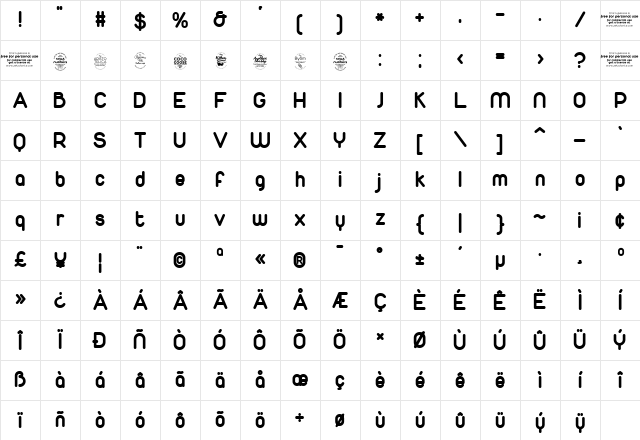
Duepuntozero Bold Free Font
Duepuntozero Bold
Foundry: studio kmzero
Designer: Francesco Canovaro
Design Context for Duepuntozero
Duepuntozero is a composed and adaptable typeface that performs quietly and consistently across a wide range of design contexts. Its bold stroke weight gives it real presence on the page.